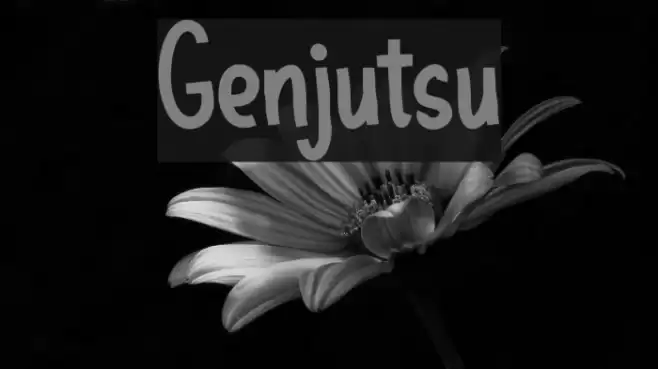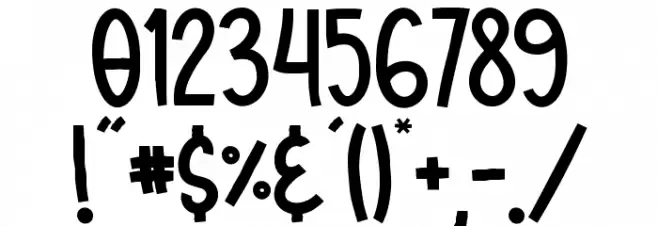
Genjutsu Font
Genjutsu Description
This font features a playful and casual style with a hand-drawn appearance. The letters are slightly irregular, giving it a whimsical and friendly feel. The uppercase characters are bold and prominent, while the lowercase letters maintain a consistent flow with rounded edges. Numbers and special characters are designed to match the overall aesthetic, ensuring a cohesive look. The font's unique character shapes and informal style make it suitable for creative and informal projects.
A playful, hand-drawn font with a whimsical and casual style from Uncategorized fonts.
- Proposed Projects: Ideal for children's books, greeting cards, playful branding, and informal invitations.
- Overall Style: Casual
- Use Case: Headlines, Logos, Informal Text